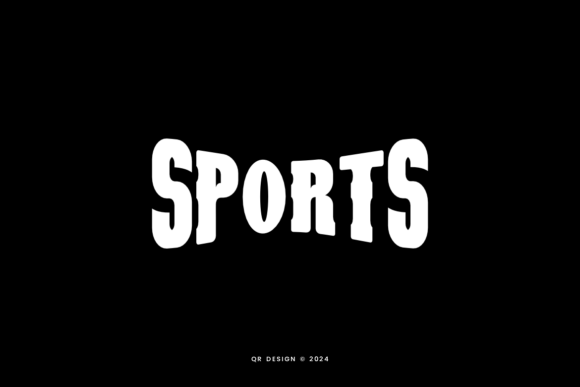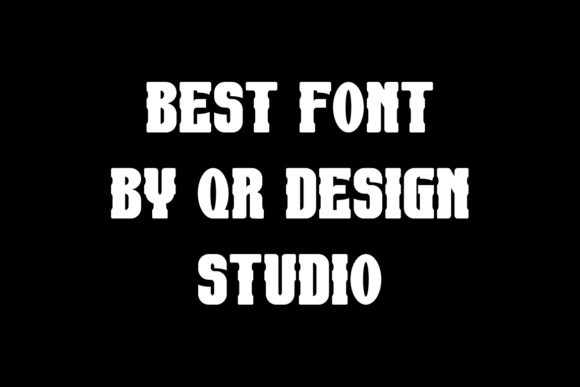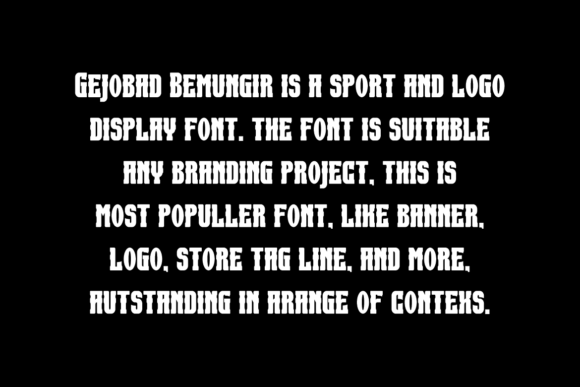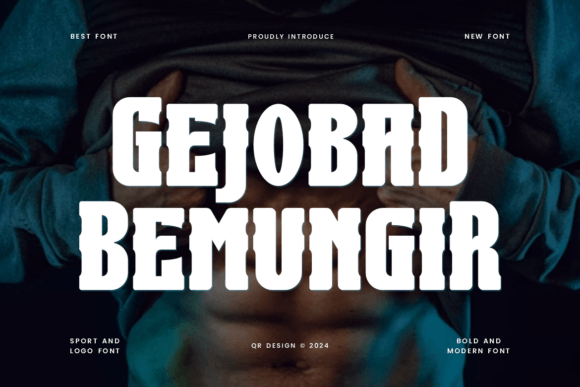
Introduction to Gejobad Bemungir Font
Gejobad Bemungir is a bold and authentic slab serif font.
It is suitable for any branding project like logo, sport, and many more Outstanding in a wide range of contexts.
Key Features of Gejobad Bemungir Font